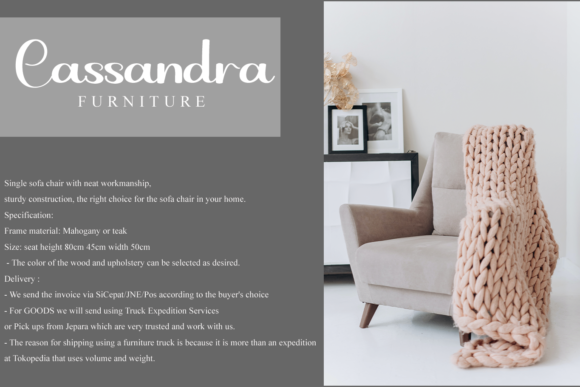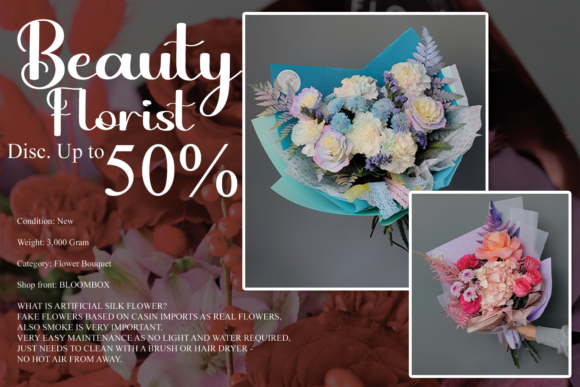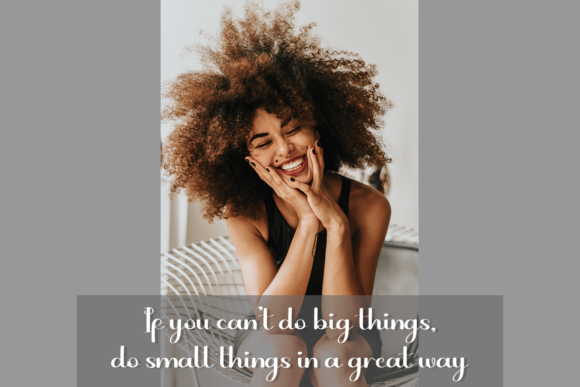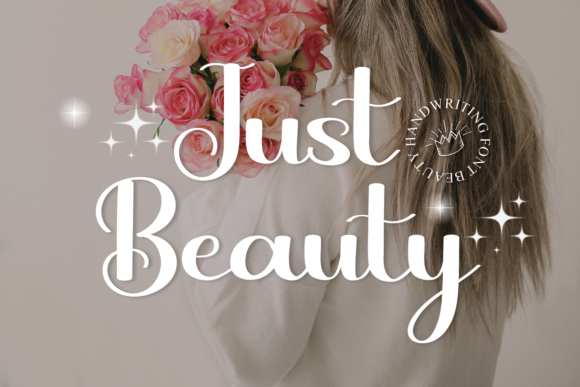
Introduction to Just Beauty Font
Just Beauty is a flowing and graceful script font.
Fall for its ravishing style and use it to create gorgeous wedding invitations, beautiful stationary art, eye-catching social media posts, and much more .
Just Beauty Font offers exceptional quality and versatility, making it a valuable addition to your design toolkit. Whether you’re creating for personal projects or commercial use, Just Beauty Font delivers professional results.